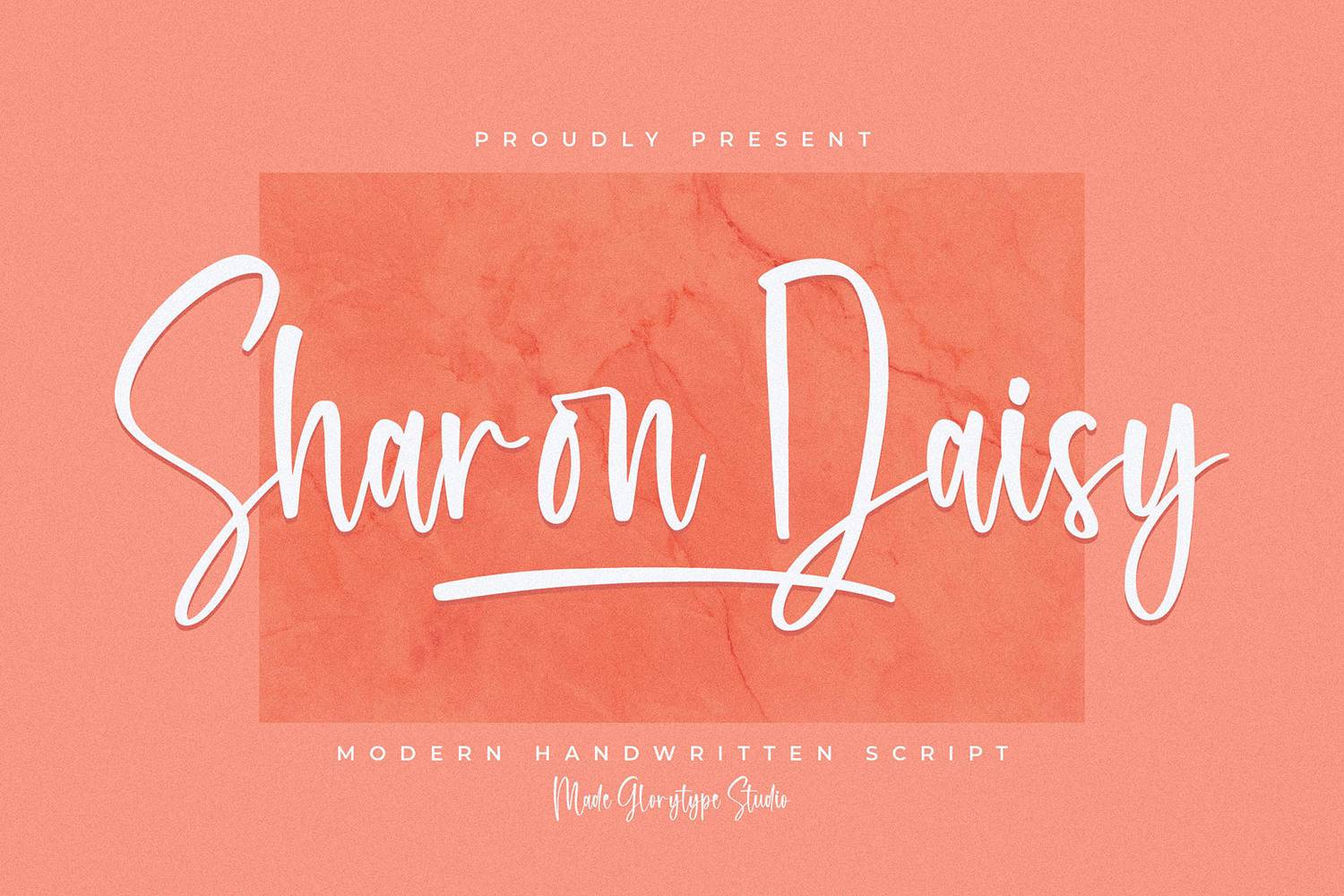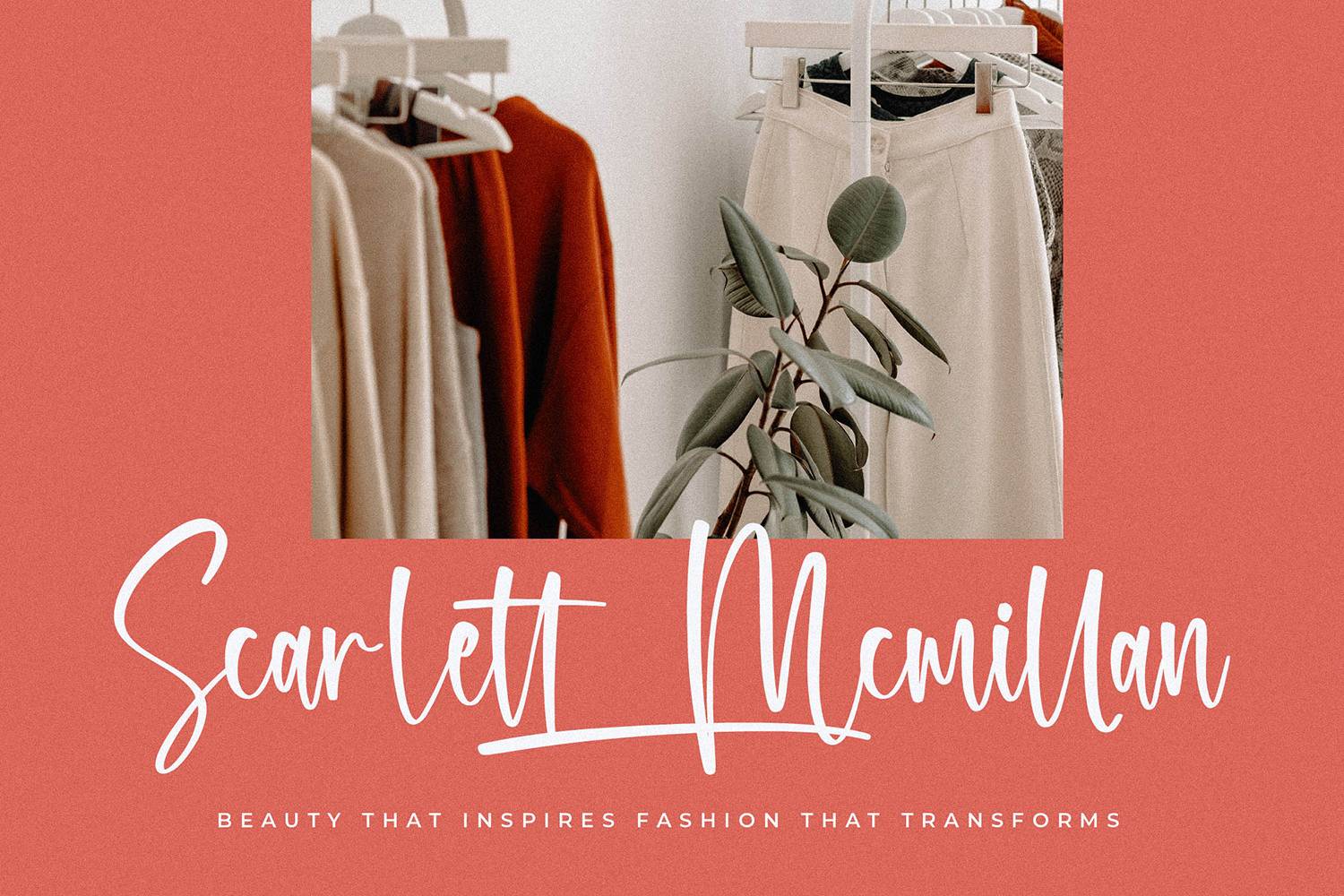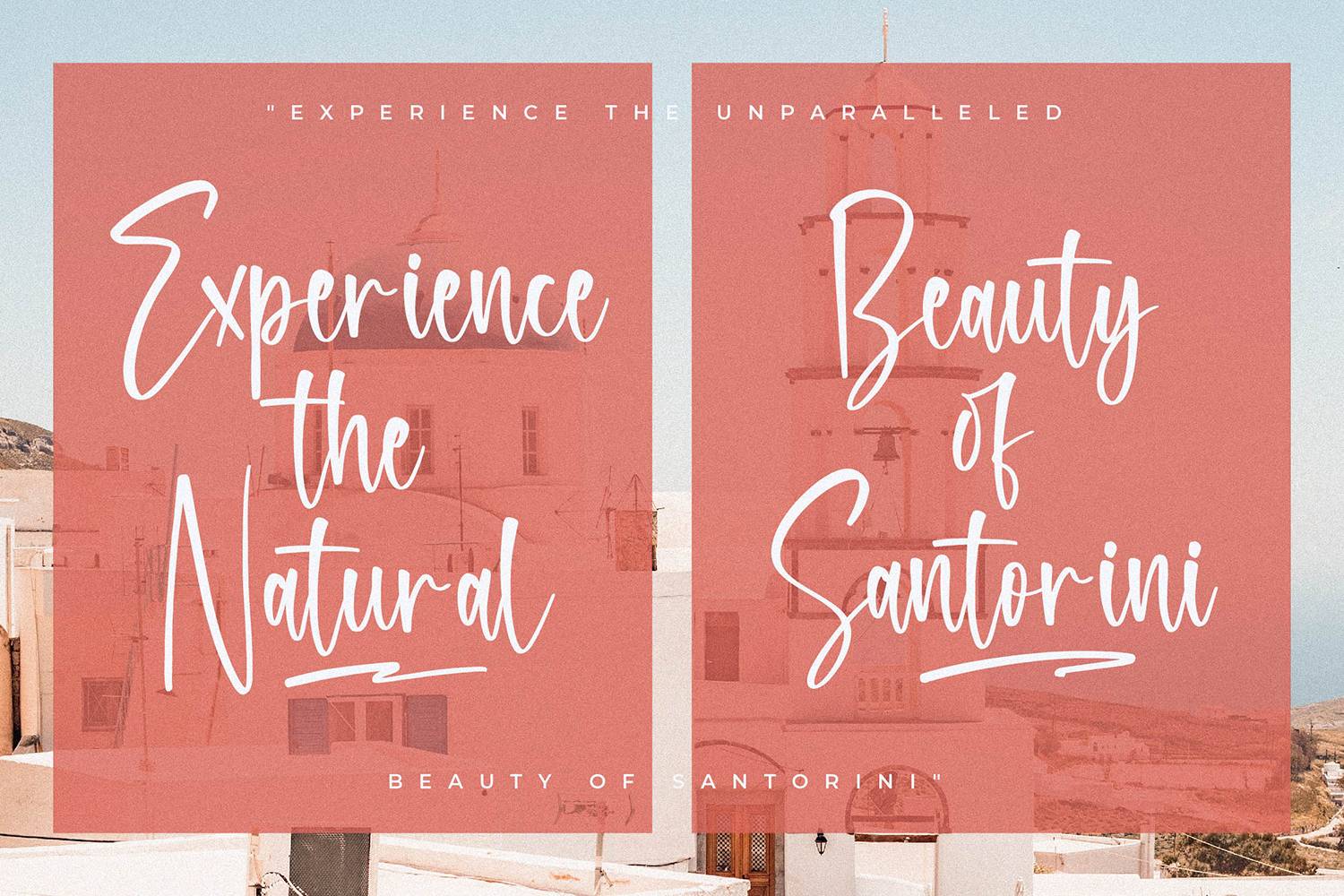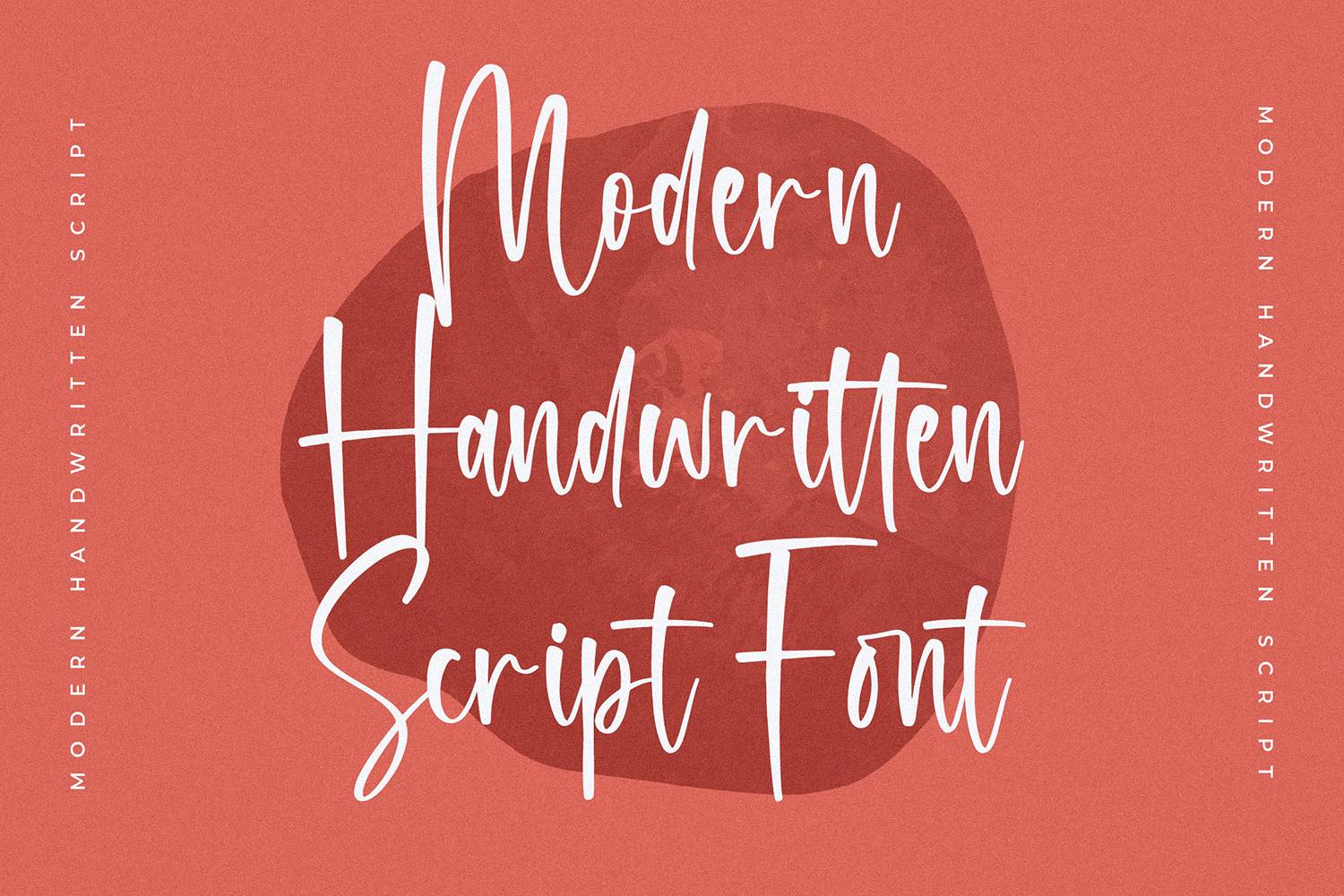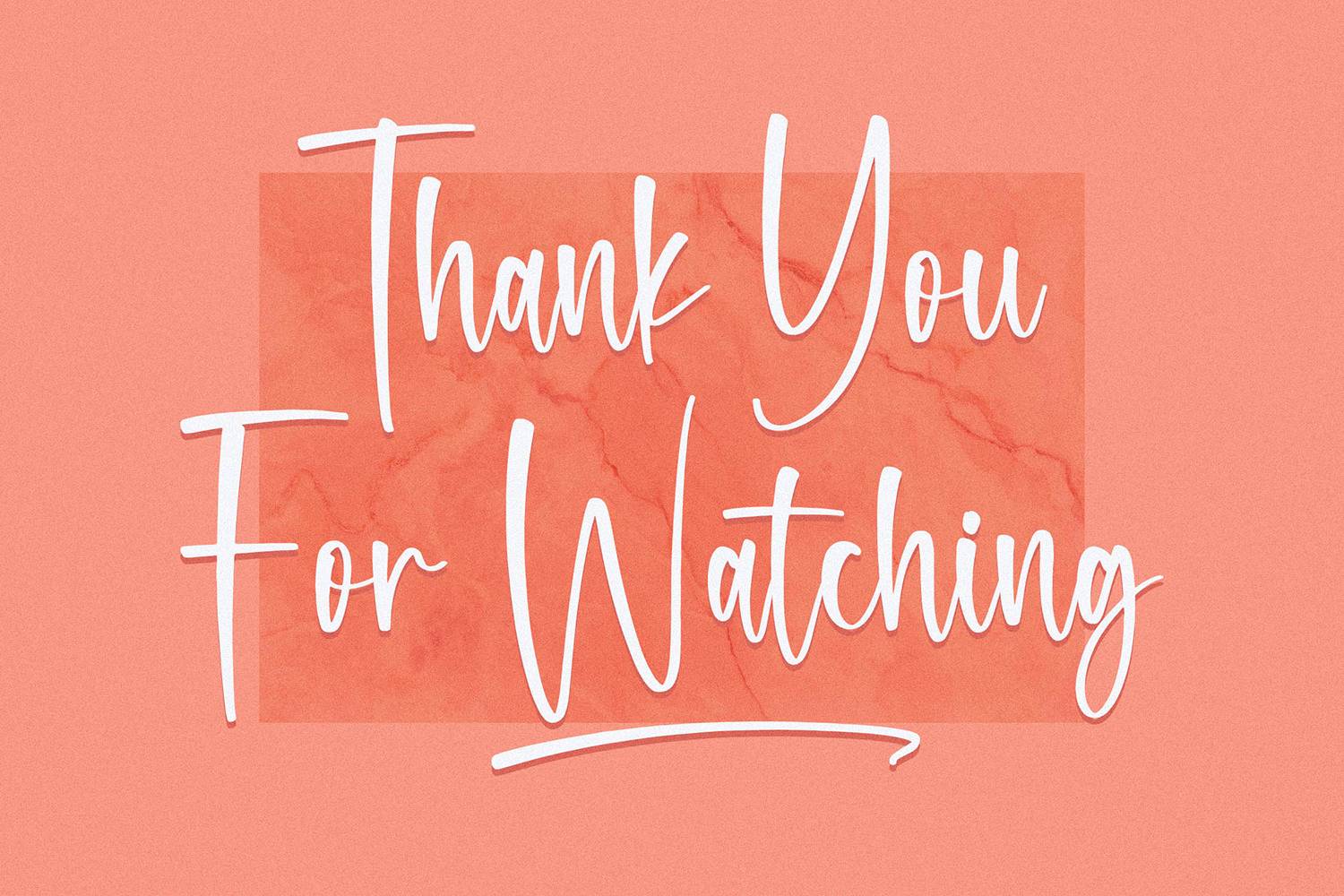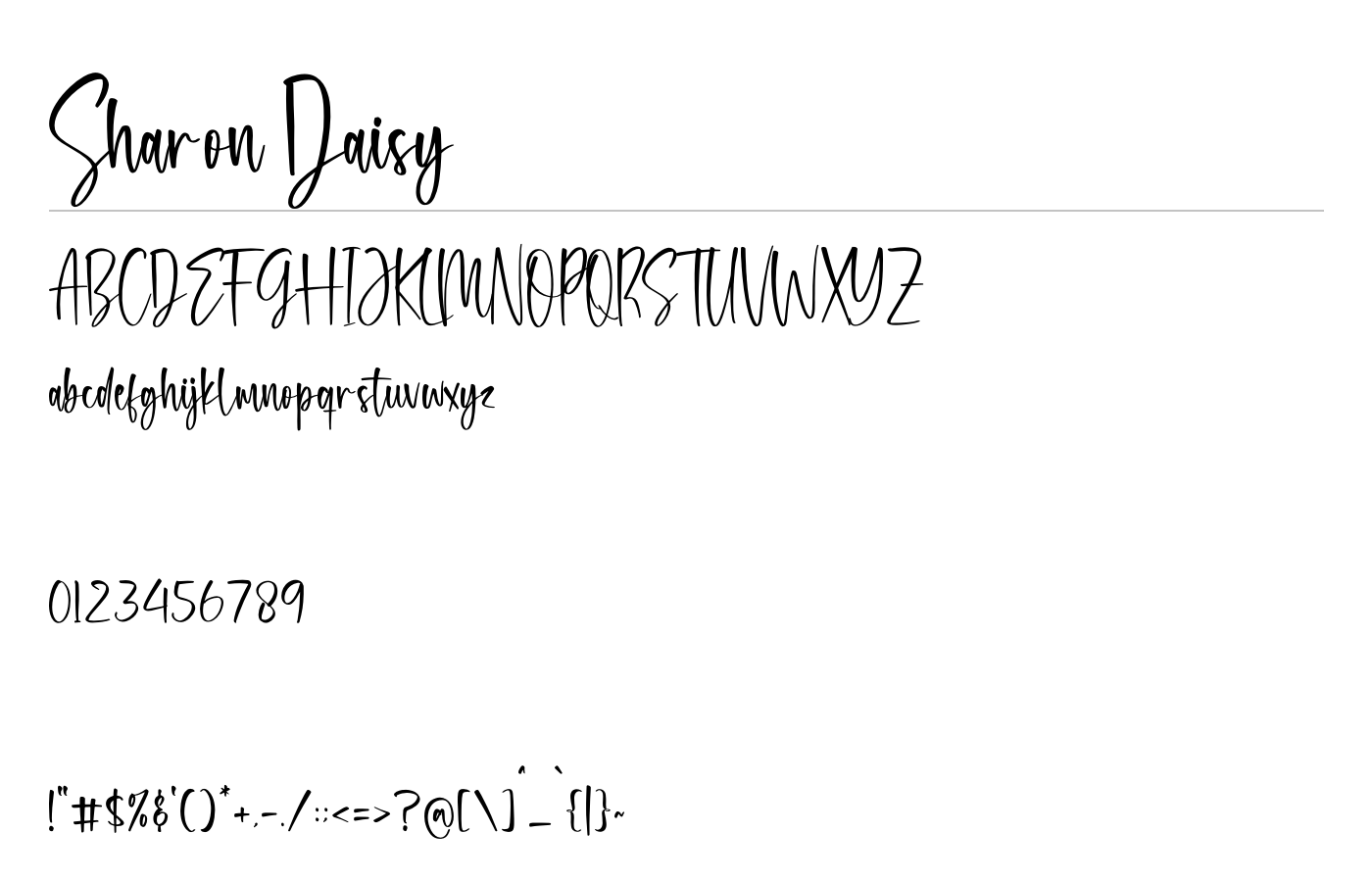
Sharon Daisy is a charming handwritten script font with a playful and elegant feel. It features tall, thin strokes with a casual, brush-like texture, combining a natural flow with unique letter shapes that add personality. Perfect for creative branding, invitations, and lifestyle projects, this font brings a personal, approachable touch to any design.
Sharon Daisy Font
About Sharon Daisy Font